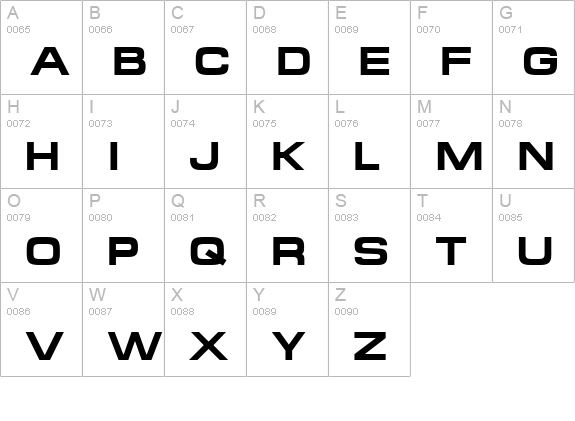
Minima Expanded SSi Bold Expanded is a strong, high-contrast, extended-width variant in the Minima typeface family \xE2\x80\x94 well suited to headlines, attention-grabbing titles, and strong calls-to-action.
Introducing Minima Expanded SSi Bold Expanded font, a sleek and modern typeface that exudes confidence and sophistication. With its bold and expanded design, this font is perfect for making a statement in headlines, titles, and branding materials. The clean lines and sharp edges of Minima Expanded SSi Bold Expanded font give it a contemporary and professional look that will elevate any design project. Best of all, Minima Expanded SSi Bold Expanded font is available for free download at FontsMarket.com. Whether you're working on a logo, poster, or website, this versatile font will add a touch of elegance and style to your work. Don't miss out on the opportunity to enhance your designs with this stunning typeface - download Minima Expanded SSi Bold Expanded font today!